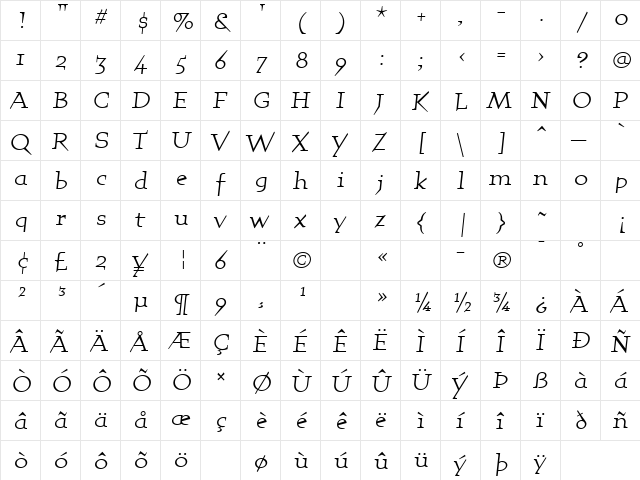
QuartetRegularOldstyle Regular
Design Context for QuartetRegularOldstyle Typeface
QuartetRegularOldstyle brings classic typographic sensibility to the table — its serifs and measured letterforms reflect centuries of print heritage.
Pro Tip: Set QuartetRegularOldstyle with slightly loose tracking in headlines to let each letterform's detail read clearly at display sizes.